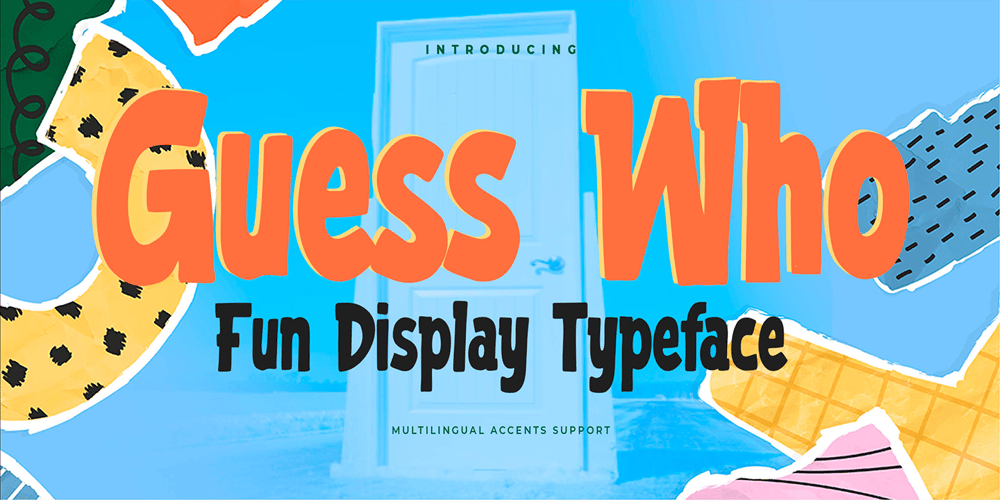
Guess Who Font Family was designed by Abdul Malik Wisnu, Anang Fibriyanto and published by Gassstype. Guess Who contains 1 styles and family package options. Hello Everyone, introduce our new product Font Guess Who is a Fun Display Typeface .This is a Textured Natural Style and classy style with a clear style and dramatic movement.This font Guess Who is great for your next creative project such as logos, printed quotes, invitations, cards, product packaging, headers, Logotype, Letterhead, Poster, Design this font is great for your creative projects such as watermark on photography. You can activate 8 Ligatures glyphs and 8 Alternates glyphs OpenType panel.